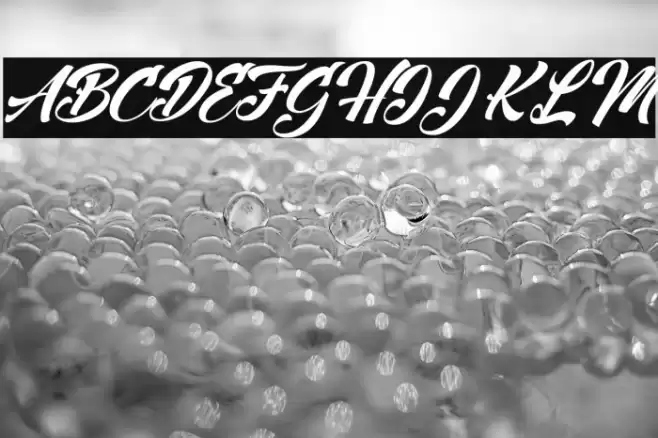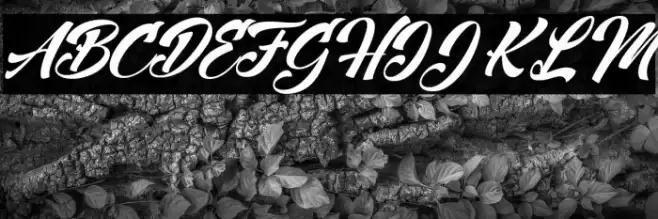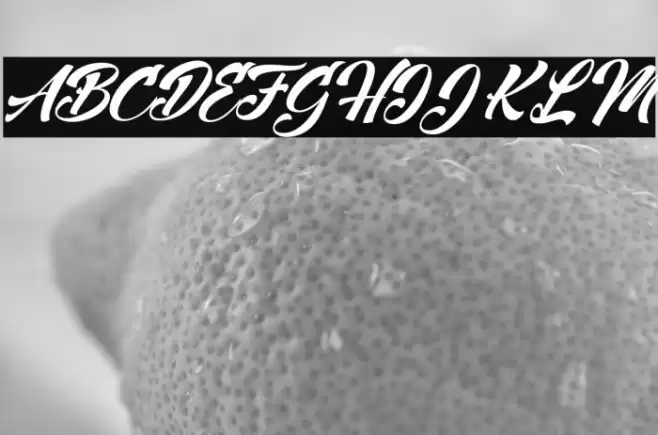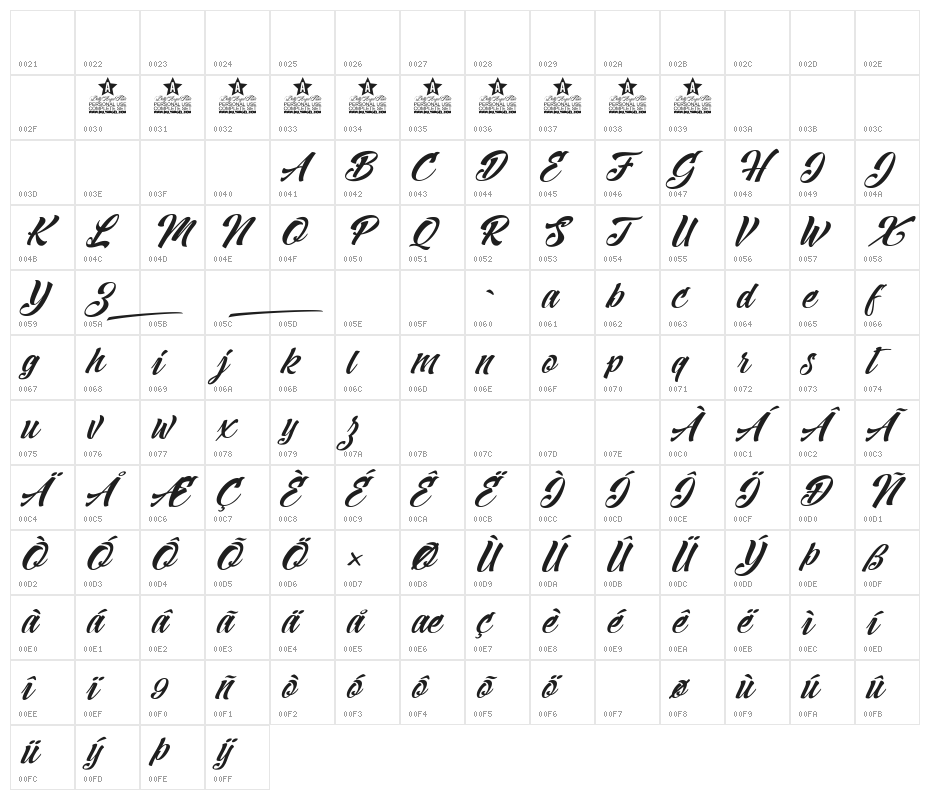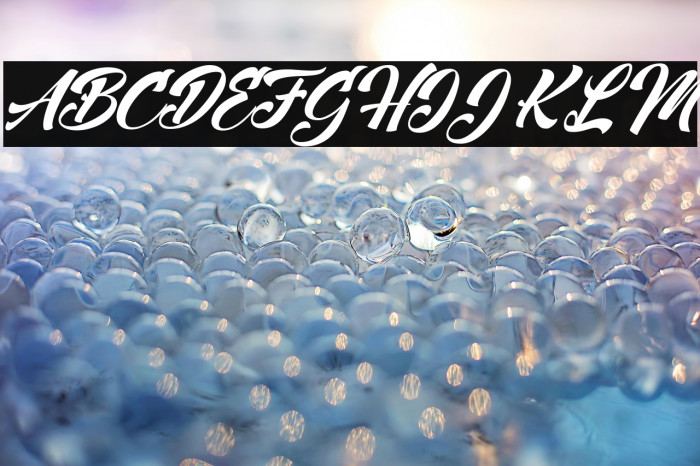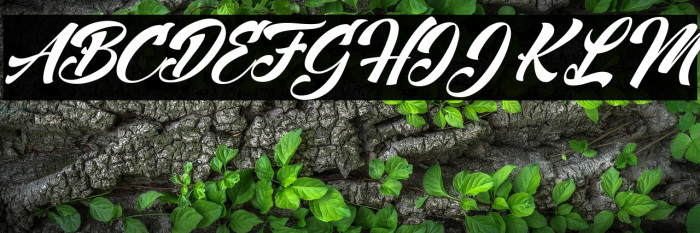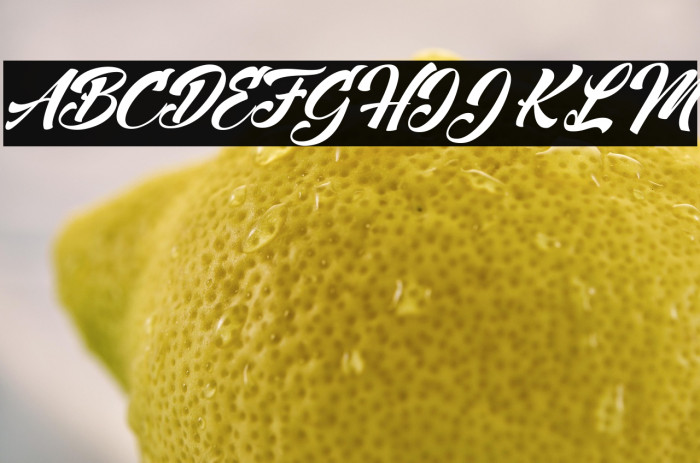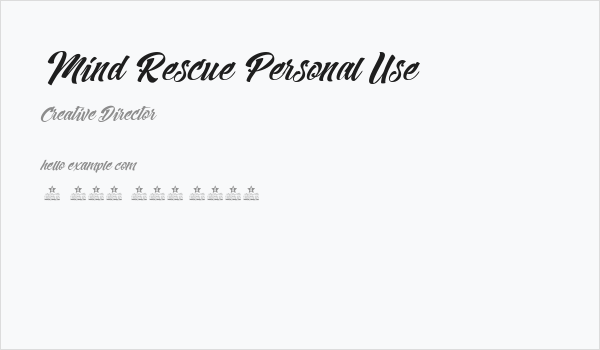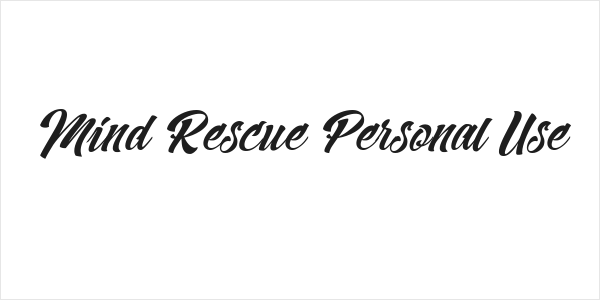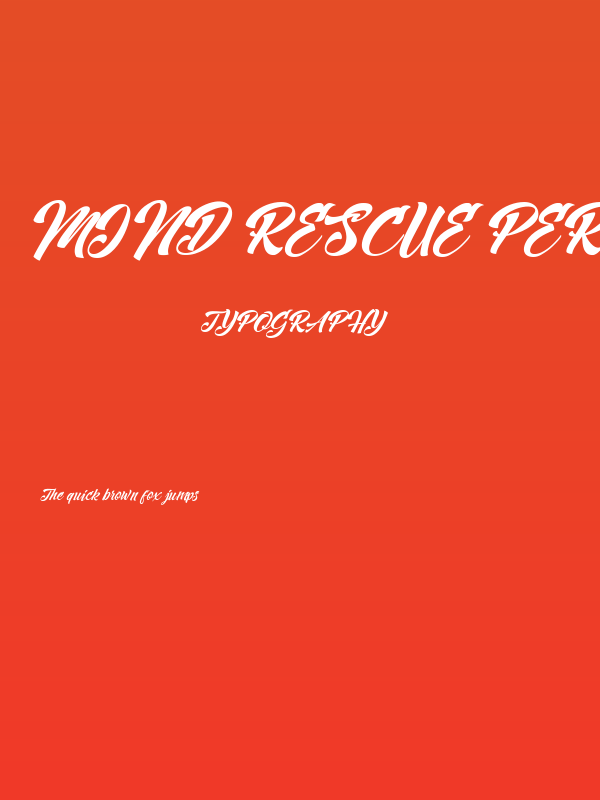
Mind Rescue Personal Use Font
Mind Rescue Personal Use Description
This font features a bold and dynamic script style, characterized by its flowing, cursive letterforms. The strokes are thick and consistent, giving it a strong presence. The uppercase letters are particularly elaborate, with sweeping curves and flourishes that add a touch of elegance. The lowercase letters maintain a cohesive flow, making it suitable for creating visually appealing text. The font's design is reminiscent of traditional calligraphy, yet it maintains a modern edge, making it versatile for various design applications.
A bold, dynamic script font with flowing cursive letterforms and elegant flourishes from Uncategorized fonts.
- Font: Mind Rescue Personal Use
- Proposed Projects: Ideal for branding, invitations, signage, and any project requiring a touch of elegance and sophistication.
- Use Case: Logos, Headlines, Invitations